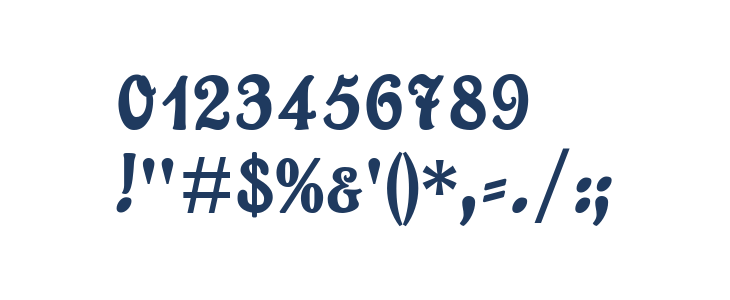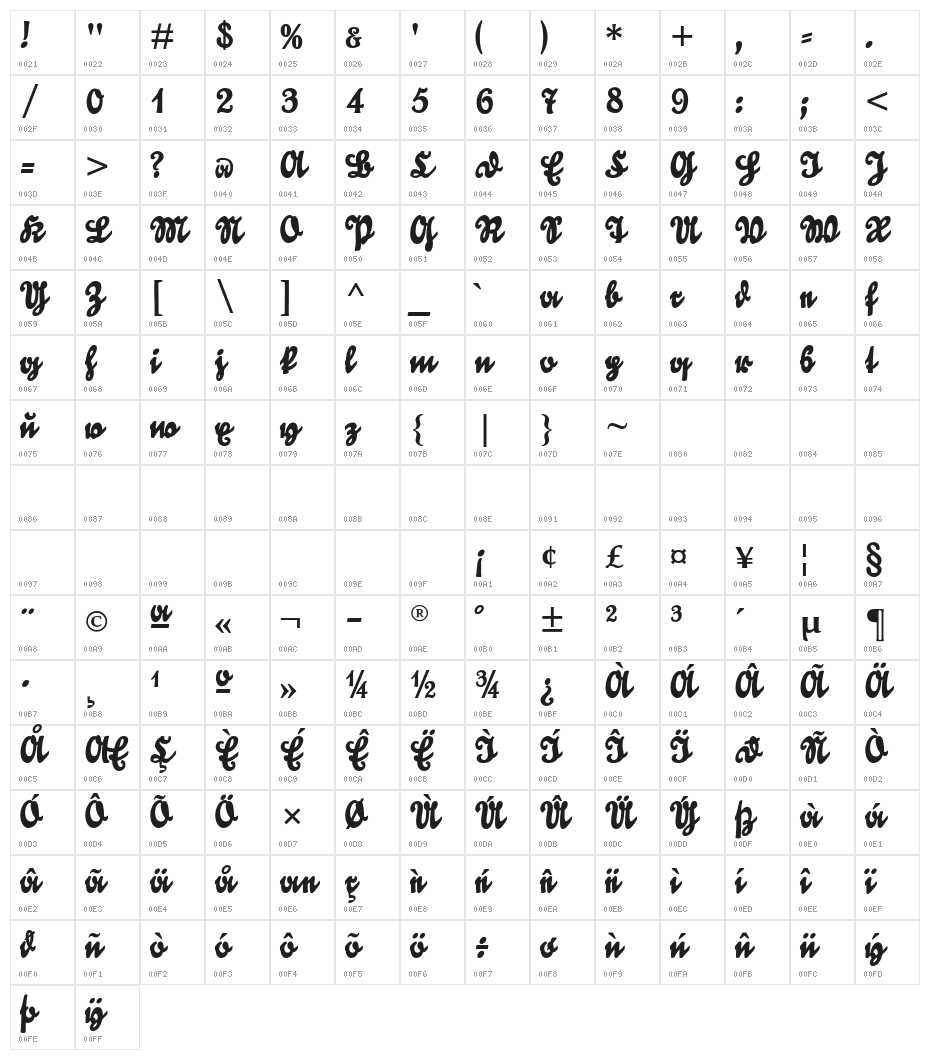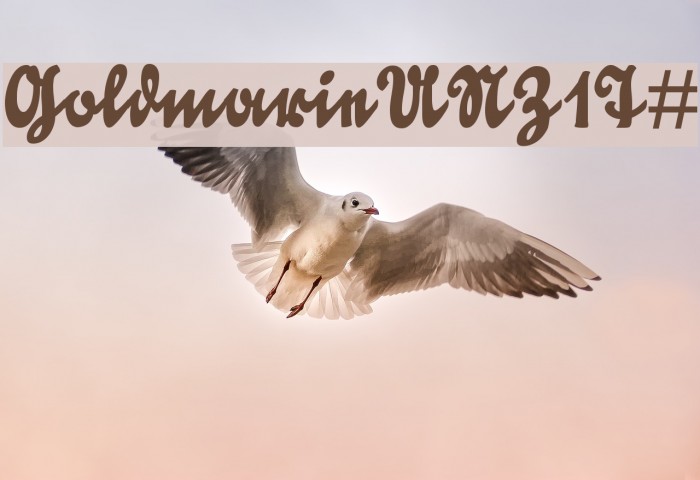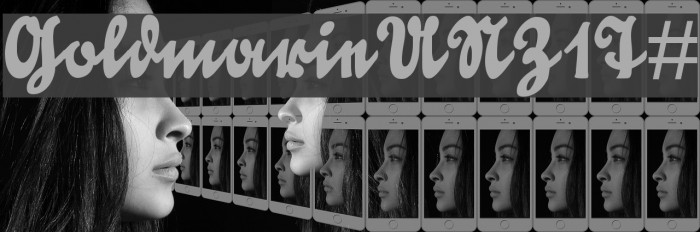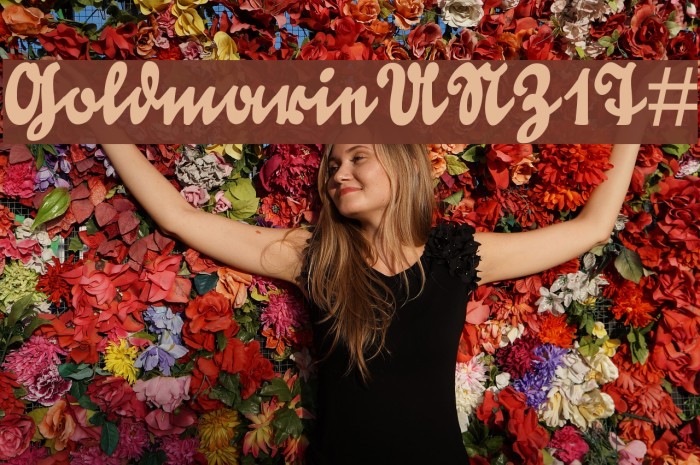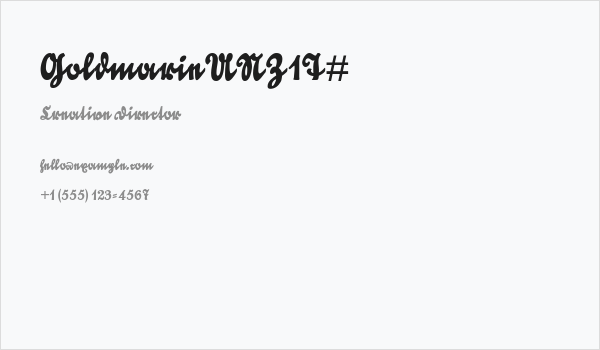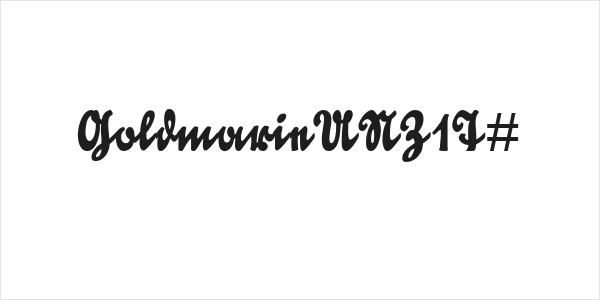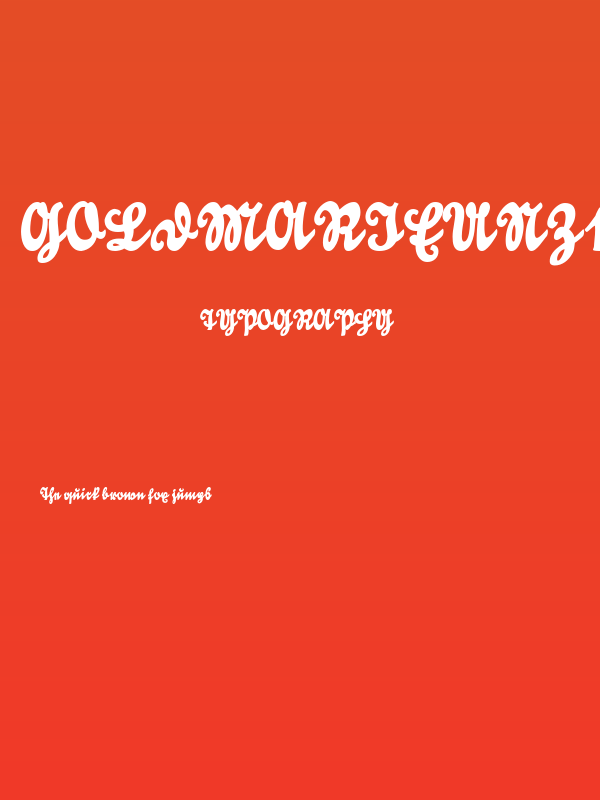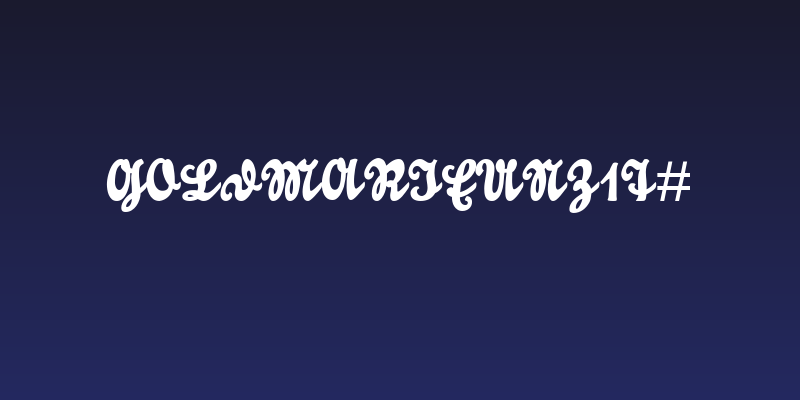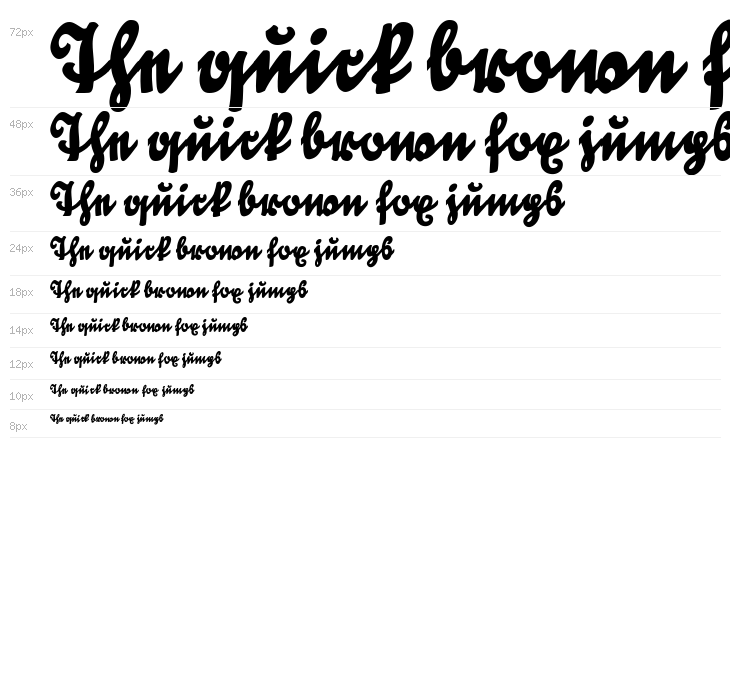
GoldmarieUNZ1T# Font
GoldmarieUNZ1T# Description
This font features a bold and expressive script style with a playful and decorative flair. The characters are interconnected with smooth, flowing strokes that create a sense of movement and elegance. The uppercase letters are ornate, with intricate loops and swirls, while the lowercase letters maintain a consistent flow, enhancing readability. The numerals are equally stylized, maintaining the overall aesthetic of the font. Special characters are designed to match the decorative style, making this font suitable for creative and artistic projects.
| Proposed Projects | Ideal for wedding invitations, greeting cards, logos, and branding materials that require a touch of elegance and creativity. |